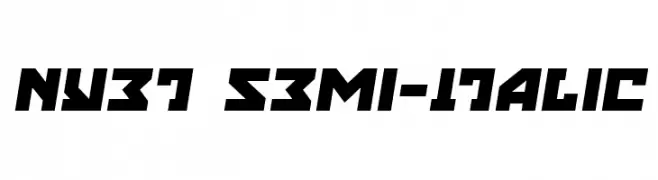
A bold, geometric font with a futuristic and industrial style.
A bold, 3D geometric font with a modern, futuristic style.
A bold, 3D italic font with outlined characters and a futuristic style.
A bold, chrome-like italic font with a futuristic and dynamic style.
A bold, condensed, and geometric font with a modern industrial style.
A bold, condensed italic font with a dynamic and modern style.
A bold, geometric font with a futuristic and industrial style.
A bold, expanded, and italic font with a modern and dynamic style.
A bold, futuristic font with a distinctive striped pattern.
A bold, italicized font with a gradient effect, conveying speed and modernity.
A bold, futuristic font with a halftone effect and dynamic horizontal lines.
A bold, italicized font with a halftone effect, offering a dynamic and futuristic look.
A bold, italicized font with a modern, dynamic style.
A bold, futuristic font with a geometric, blocky design.
A bold, italicized font with a futuristic and geometric design.
A bold, angular font with a futuristic and dynamic style.
A bold, semi-italic font with a modern, angular design.
A bold, italic, and dynamic font with a modern, geometric style.
A bold, geometric font with a modern, industrial aesthetic.
A bold, italic, geometric font with a modern and dynamic style.
A modern, italicized outline font with a futuristic and dynamic style.
A bold, 3D italic font with a futuristic and dynamic design.
A bold, 3D geometric font with a futuristic and digital aesthetic.
A bold, angular, and futuristic font with an italic slant and outlined design.
A bold, geometric font with a futuristic, industrial style.
A bold, geometric, and futuristic font with a condensed style.
A bold, angular, and futuristic font with a condensed and italic style.
A bold, geometric font with a futuristic and industrial style.
A bold, angular, and futuristic font with an expanded, italic style.
A bold, futuristic font with a gradient effect and italicized slant.
A bold, futuristic font with a gradient effect and geometric design.
A bold, 3D italic font with a futuristic, halftone design.
A bold, italicized font with a futuristic halftone effect and angular design.
A bold, futuristic font with a halftone effect and geometric design.
A bold, angular, and italic font with a futuristic, sci-fi aesthetic.